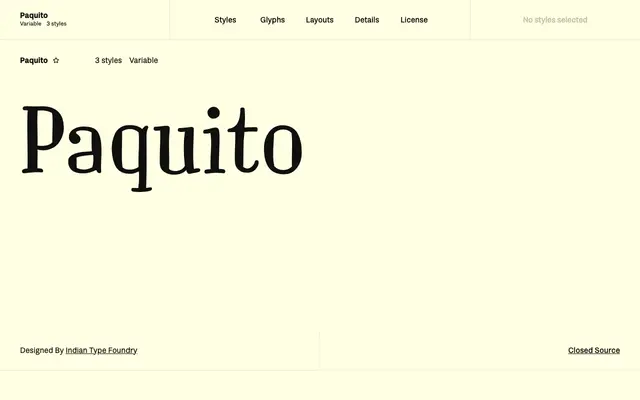
Paquito
A condensed, whimsically drawn display slab by Juanjo Lopez, released through Indian Type Foundry, with a hand-lettered irregularity suited to headlines and food-sector design.
Three weights span Regular to Bold, all drawn with a fine-tipped pen character that introduces deliberate irregularity across the letterforms. The condensed proportions make it efficient at large sizes, and details such as top-heavy uppercase letters, unconventional numerals and 46 ligatures reward close inspection. Paquito works well in editorial headlines but finds a natural home in restaurant identities, menu design and food packaging.
Fontshare categorises it as Serif, Slab. The letterforms are condensed and whimsically hand-lettered in character, placing it firmly in display slab territory with intentional irregularity and quirk.